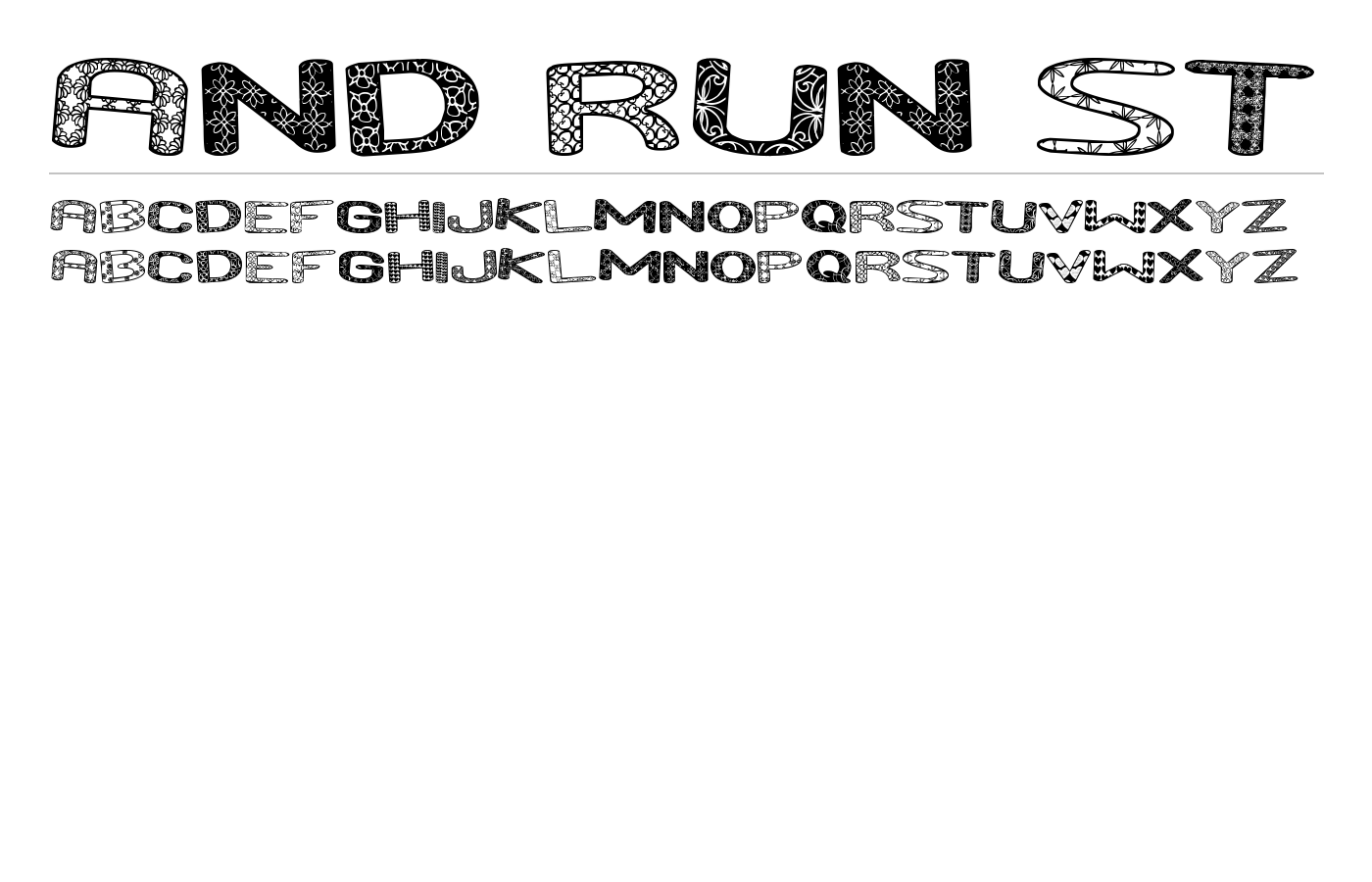
And Run St is a decorative, playful sans serif display font characterized by its bold, rounded letterforms filled with intricate floral and geometric patterns. This font combines a casual, whimsical style with strong presence, making it ideal for creative projects, eye-catching headlines, and branding that seeks a fun, artistic vibe. Its unique, patterned design works beautifully in posters, packaging, and logos where a lively and imaginative look is desired.
And Run St Font
About And Run St Font
| Font family | And Run St Font |